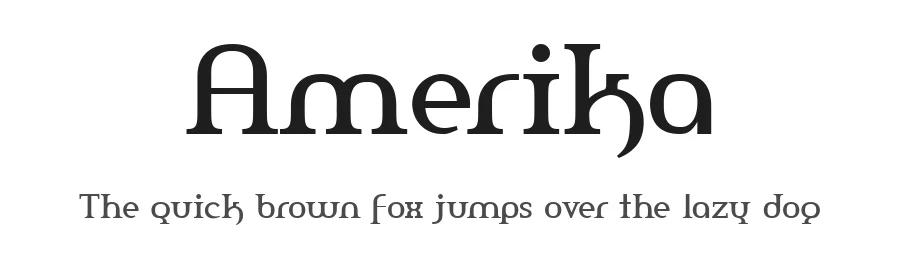
About Amerika Pro Font
This is the 200th font released by CheapProFonts, and again I wanted to make something special - so I have chosen to upgrade another well-known font by the infamous Fredrick "Apostrophe" Nader: Amerika!
The whole character set for this stylish font has been polished for consistent baseline placement and serif thickness, and proper overshoots has been implemented. All the alternate letterforms (and some new ones) have been included as OpenType alternates AND they have now been made available with accents, too! The Greek and Cyrillic letterforms are properly encoded and kerned.
ALL fonts from CheapProFonts have very extensive language support:
They contain some unusual diacritic letters (some of which are contained in the Latin Extended-B Unicode block) supporting: Cornish, Filipino (Tagalog), Guarani, Luxembourgian, Malagasy, Romanian, Ulithian and Welsh.
They also contain all glyphs in the Latin Extended-A Unicode block (which among others cover the Central European and Baltic areas) supporting: Afrikaans, Belarusian (Lacinka), Bosnian, Catalan, Chichewa, Croatian, Czech, Dutch, Esperanto, Greenlandic, Hungarian, Kashubian, Kurdish (Kurmanji), Latvian, Lithuanian, Maltese, Maori, Polish, Saami (Inari), Saami (North), Serbian (latin), Slovak(ian), Slovene, Sorbian (Lower), Sorbian (Upper), Turkish and Turkmen.
And they of course contain all the usual "western" glyphs supporting: Albanian, Basque, Breton, Chamorro, Danish, Estonian, Faroese, Finnish, French, Frisian, Galican, German, Icelandic, Indonesian, Irish (Gaelic), Italian, Northern Sotho, Norwegian, Occitan, Portuguese, Rhaeto-Romance, Sami (Lule), Sami (South), Scots (Gaelic), Spanish, Swedish, Tswana, Walloon and Yapese.
Amerika Pro Font is a versatile serif font that works for both headings and body text. Pair it with a contrasting sans-serif or slab serif font to add visual interest and a clear distinction between titles and body copy.